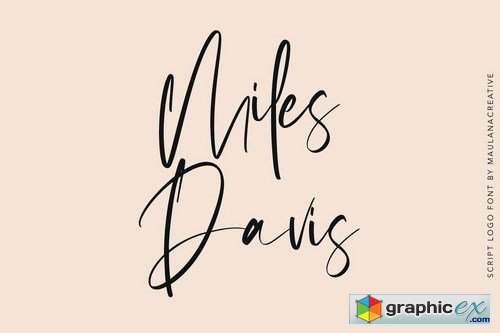
Oakmont Script Logo Handmade Font
Give your designs an authentic handcrafted feel. "Oakmont Script" is perfectly suited to signature, stationery, logo, typography quotes, magazine or book cover, website header, clothing, branding, packaging design and more.